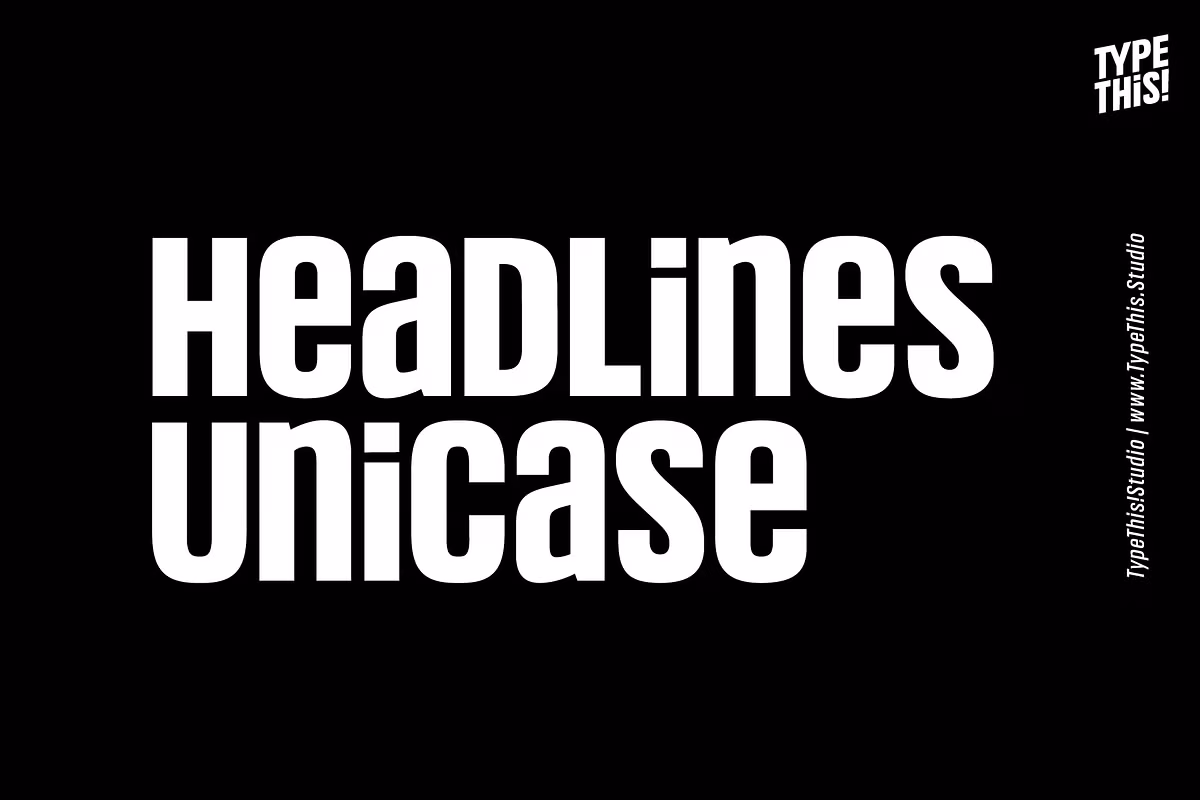
Headlines Unicase Font Family Free Download
Headlines Unicase Font Family Free Download is a bold and modern typeface collection built specifically for striking titles and impactful visual statements. Featuring a unique unicase design—where uppercase and lowercase characters share the same height and structure—this font family delivers a clean, consistent, and eye-catching look across all styles.
With multiple weights and styles, Headlines Unicase Font Family Free Download offers flexibility for designers who want to create powerful headlines, logos, posters, or web banners. Its strong geometry and uniform character set make it ideal for editorial layouts, branding projects, or any design that demands a modern edge.
This font family stands out with its minimalism, clarity, and contemporary appeal. Whether you’re designing for digital interfaces or bold print designs, Headlines Unicase ensures maximum readability with a touch of creative uniqueness.